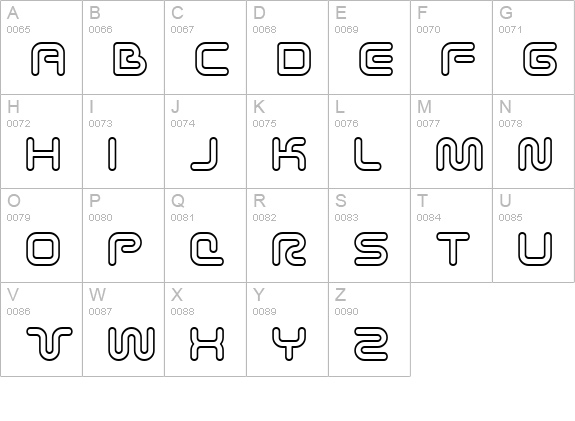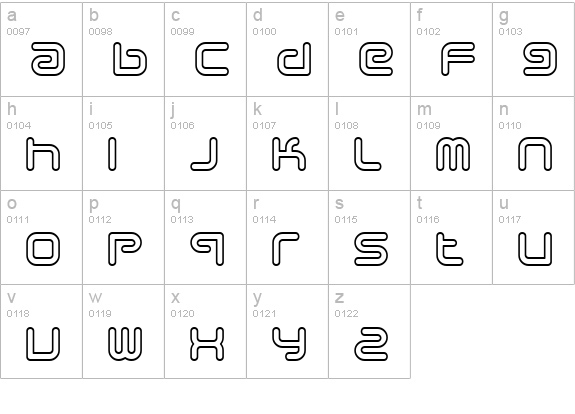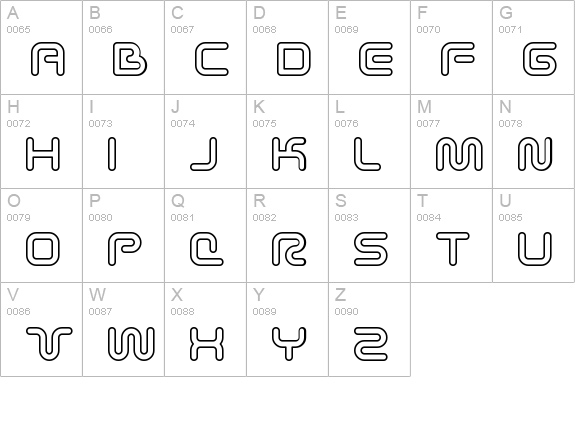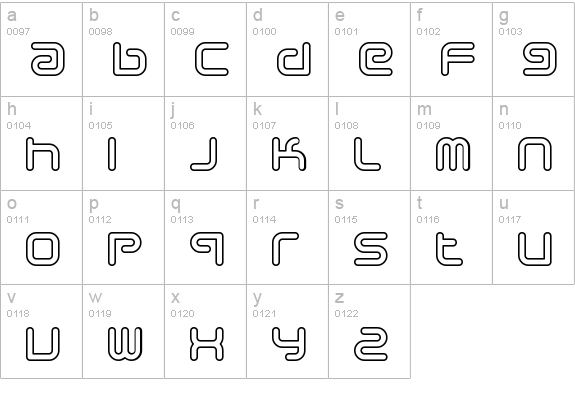
Sci Fied Outline Font Details
Introducing the captivating Sci Fied Outline font, a typeface that will transport you to a futuristic world of endless possibilities. This font is the perfect blend of science fiction and modern design, making it ideal for projects that demand a touch of otherworldly charm. With its sleek and streamlined letterforms, Sci Fied Outline adds a sense of technological advancement to any design. Each character is meticulously crafted to create a sense of movement and dynamism, giving your text a sense of energy and excitement. Whether you're creating a poster for a sci-fi film or designing a cutting-edge website, this font will make your content stand out from the crowd. One of the best features of Sci Fied Outline is that it is absolutely free. Yes, you read that right! This font is freely available to download at FontsMarket.com. You can now experience the wonders of this futuristic typeface without any cost. Say goodbye to expensive font licenses and hello to creative freedom. The versatility of Sci Fied Outline is truly unparalleled. Its clean lines and distinctive style make it suitable for a wide range of applications, from logo designs and branding projects to book covers and social media graphics. Whether you're aiming for a sleek and minimalistic look or a bold and eye-catching aesthetic, this font has got you covered. But don't just take our word for it. Download Sci Fied Outline today and see for yourself why it has become a favorite among designers and creatives worldwide. Unleash your imagination and bring your visions of the future to life with this remarkable font. Remember, it's free to download at FontsMarket.com, so there's no reason not to give it a try. Embrace the possibilities and let Sci Fied Outline take your designs to new dimensions.